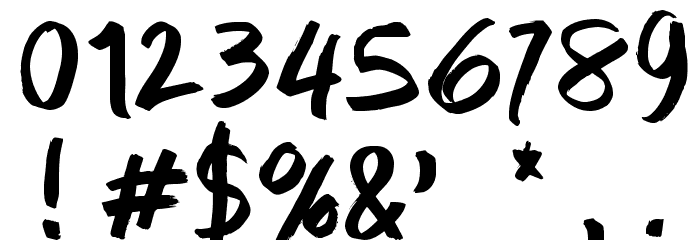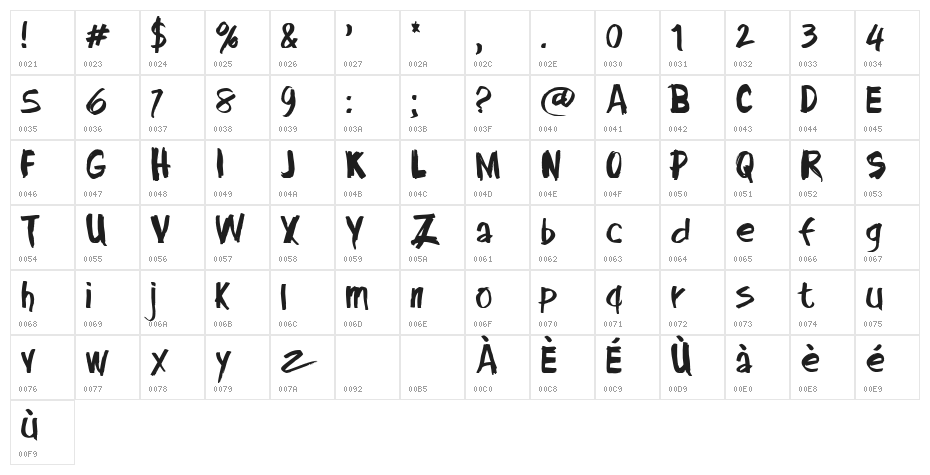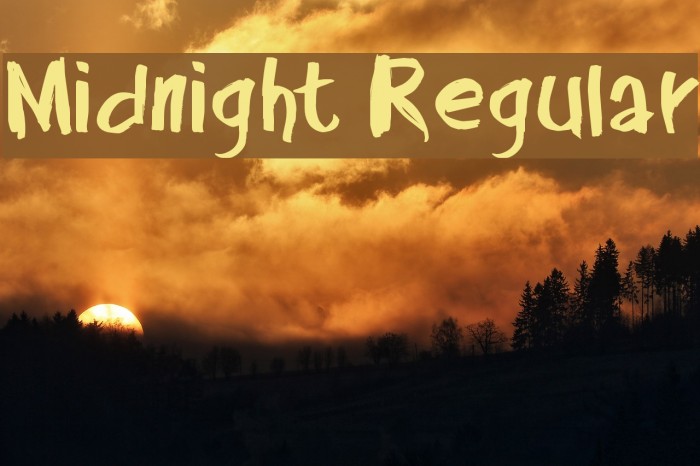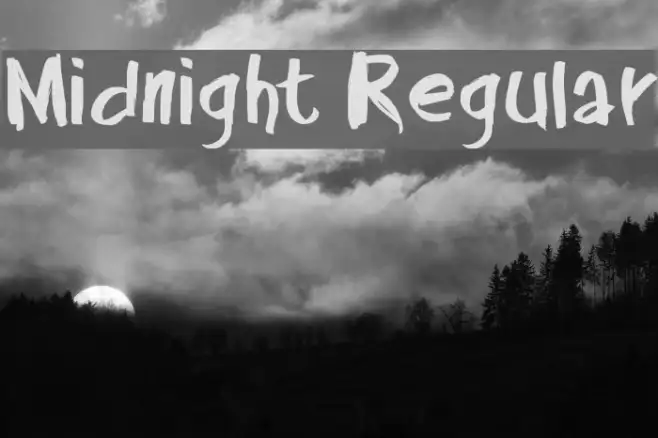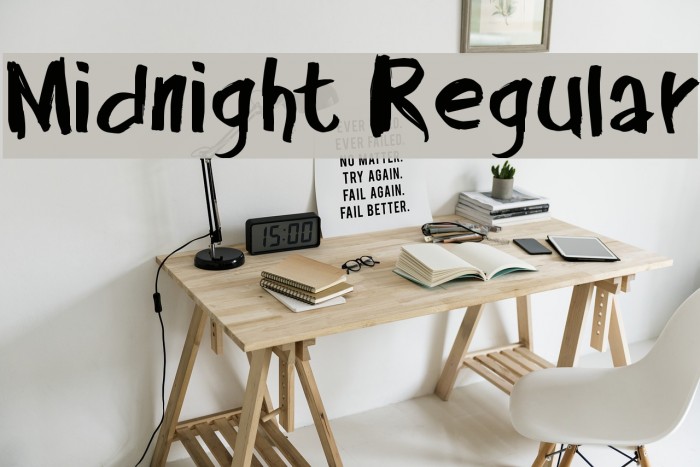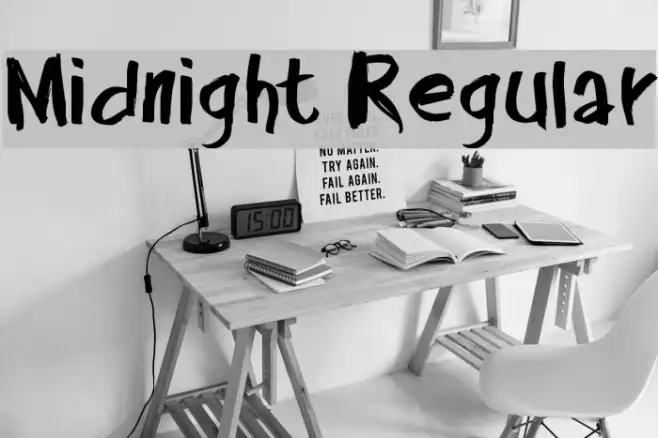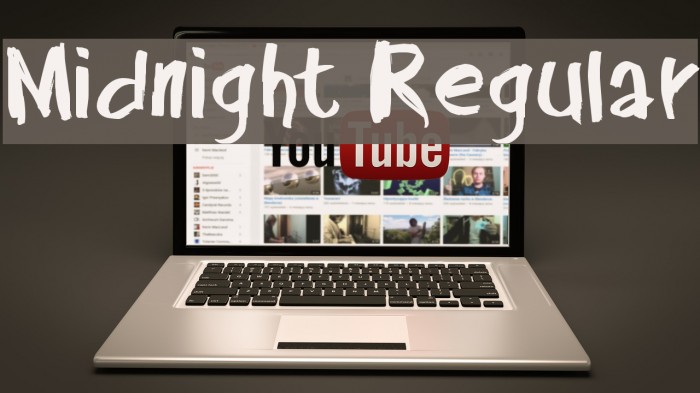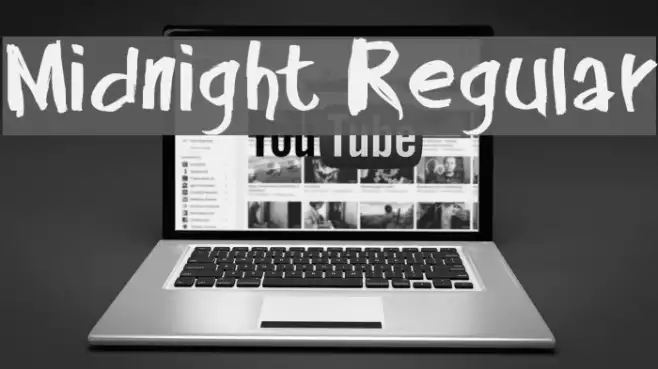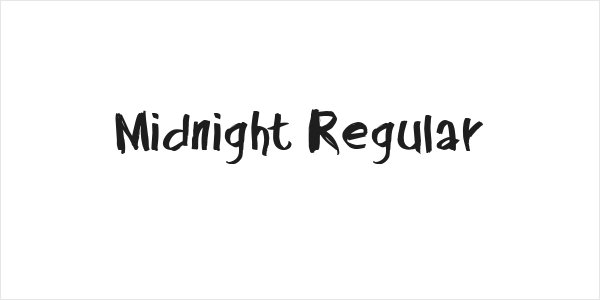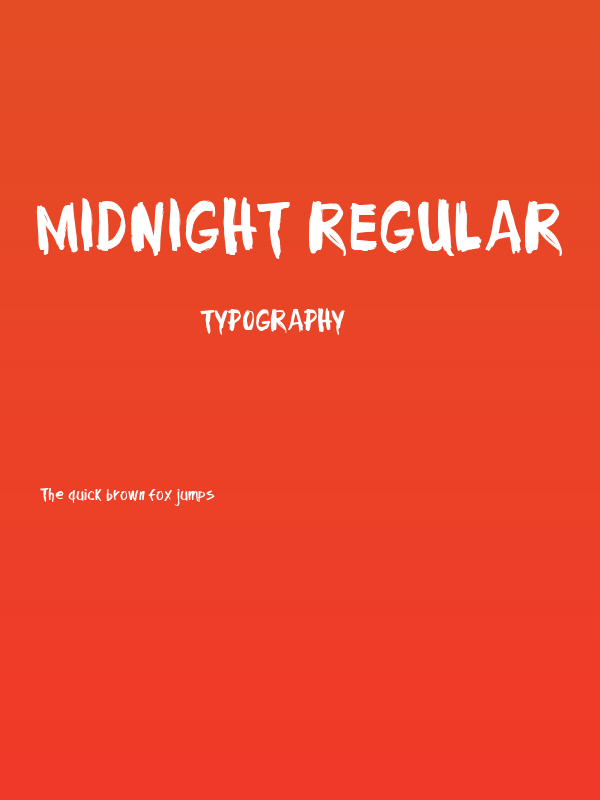
Midnight Regular Font
Midnight Regular Description
This font exhibits a bold and expressive handwritten style, characterized by its thick, uneven strokes and dynamic, energetic appearance. The uppercase and lowercase letters maintain a consistent flow, with a slightly irregular baseline that adds to its casual and artistic feel. The numerals and special characters follow the same bold and playful design, making them stand out. This font's unique style is perfect for projects that require a personal touch or a creative flair. Its boldness ensures readability while its artistic nature makes it suitable for eye-catching designs.
| Proposed Projects | Ideal for posters, invitations, branding, and any creative project that requires a personal, artistic touch. |